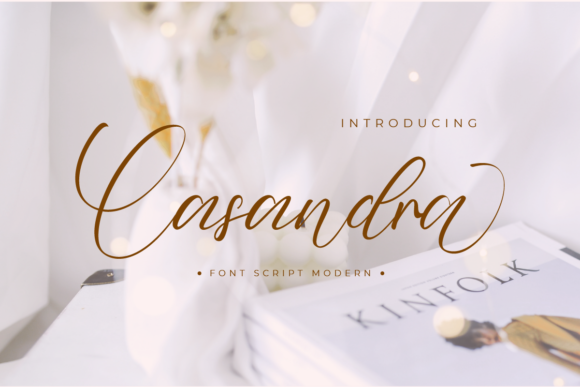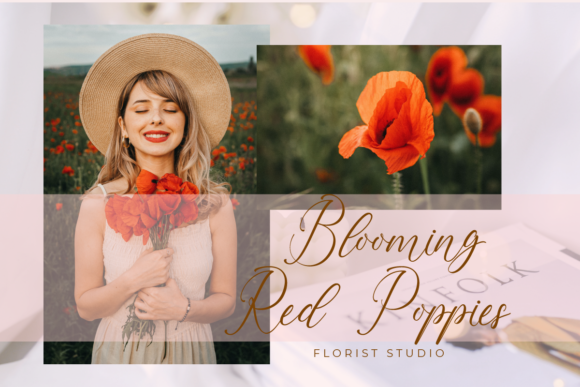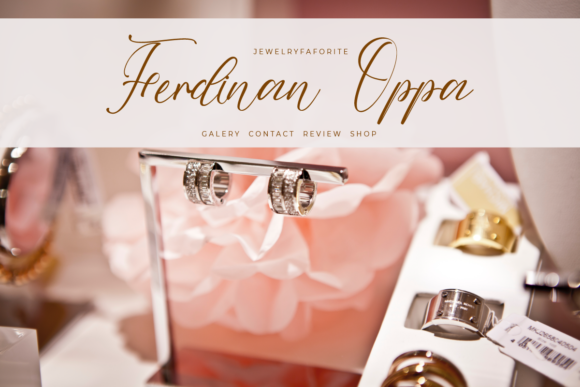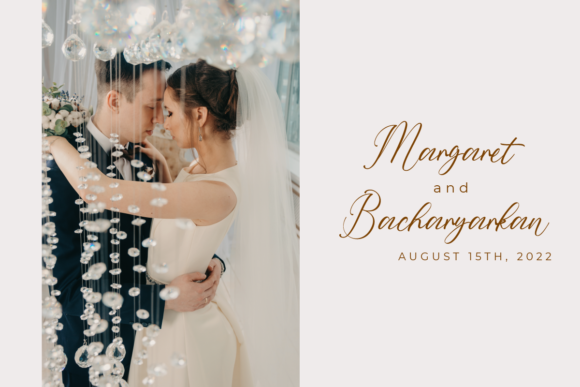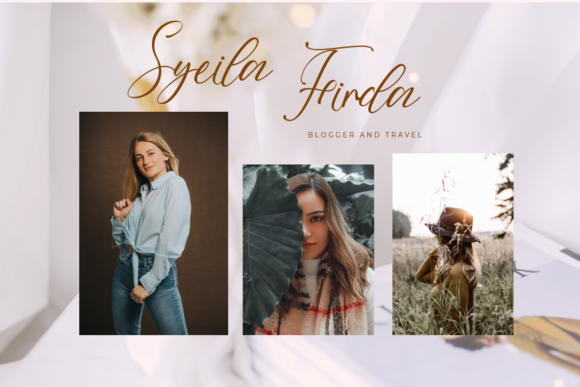
Casandra Font
About Casandra Font
Casandra is a delicate and beautiful script font. Its distinct and well balanced letters make this font a masterpiece. Fall in love with its incredibly versatile style and use it to create spectacular designs!